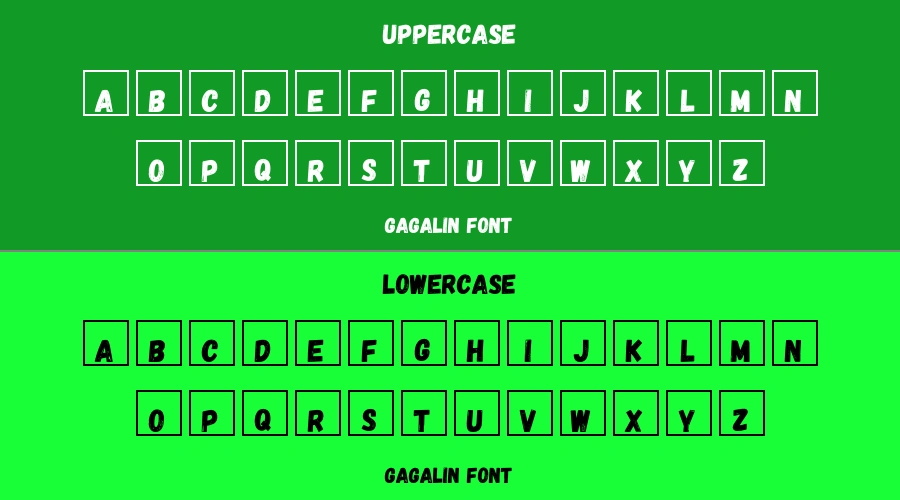
About Gagalin Font
Gagalin Font embodies typographic excellence through its masterful combination of playful elements and professional finish. Created for logo design, this typeface delivers exceptional expressiveness and market confidence across all applications. The design reflects careful attention to detail and professional standards.
Advanced capabilities include distinctive ink traps and versatile mid-word alternates, giving designers creative control. When used in logos, Gagalin Font exhibits remarkable consumer preference. The harmonious balance between stroke modulation and historical reference sets this typeface apart.